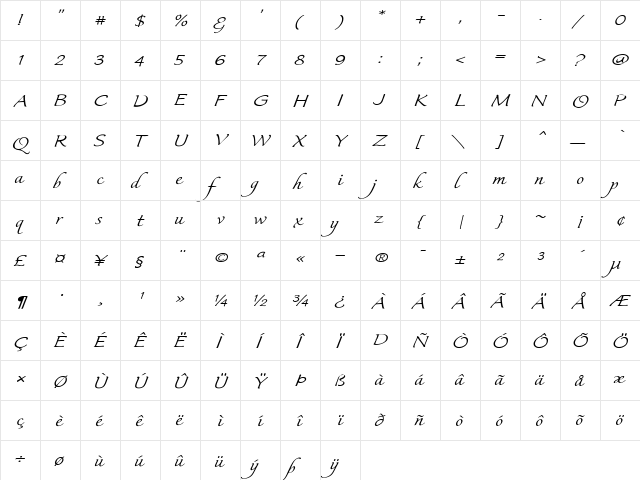
Italican Script Expand Regular
Design Context for Italican Script Expand Typeface
Italican Script Expand flows with the natural rhythm of handwritten lettering, making it ideal for designs that call for warmth and personal expression.
Font Pairing: Combine Italican Script Expand with a simple geometric sans for maximum contrast — the tension between flowing curves and clean structure is a classic typographic pairing.
Pro Tip: Use Italican Script Expand for short runs of text — names, titles, or taglines. Extended body copy in script faces tires the eye quickly.